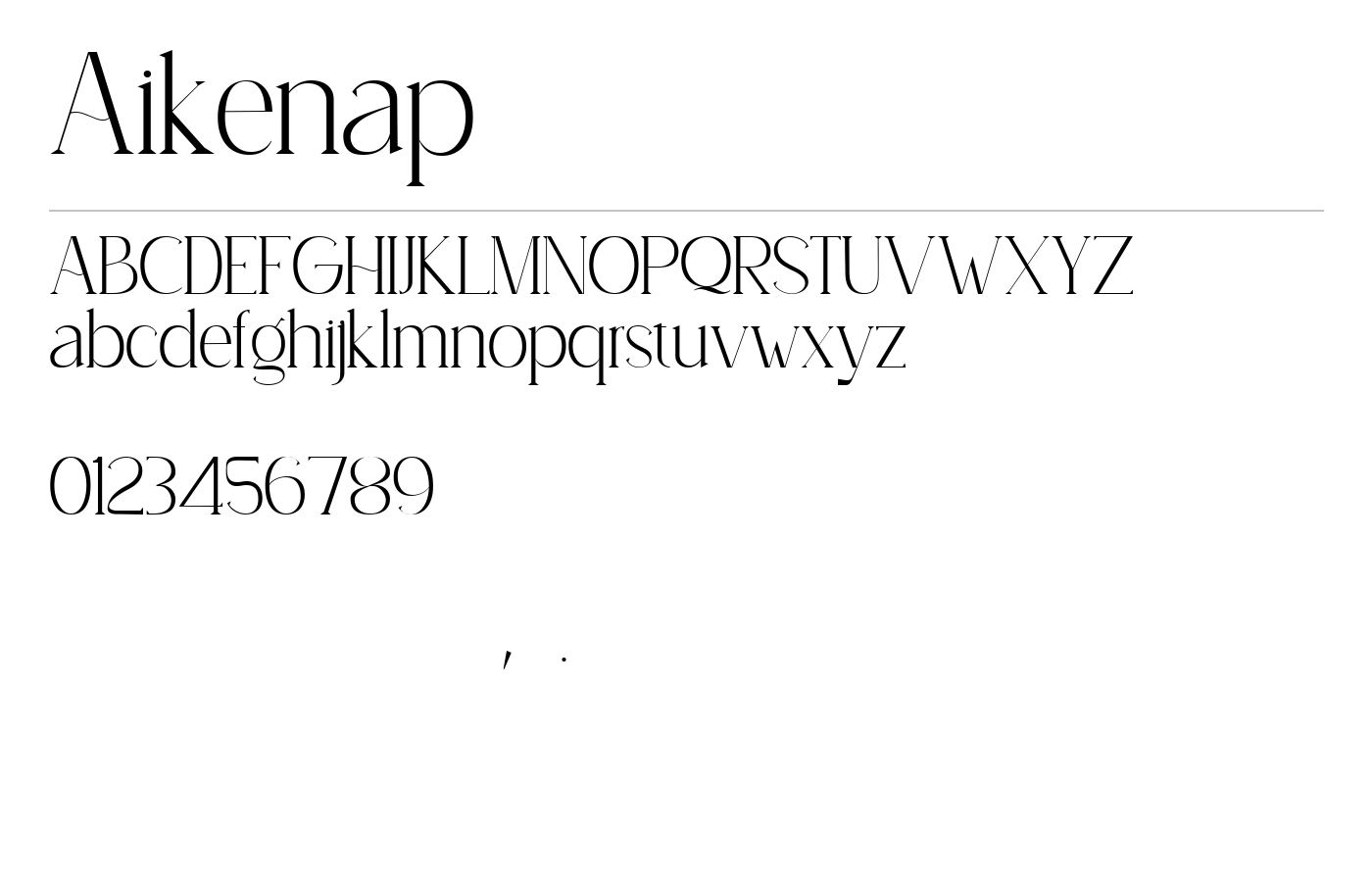
Aikenap is an elegant serif font characterized by its delicate, high-contrast strokes and tall, narrow letterforms that convey a refined and sophisticated feel. Its unique letter shapes, such as the single-story lowercase 'a' and the distinct curved details, make it ideal for luxury branding, editorial headlines, and fashion-focused design projects where a touch of modern elegance is desired. This font works best in large sizes to highlight its fine details and stylish personality.
Aikenap Font
About Aikenap Font
| Font family | Aikenap Font |
| Designer | Muksal Creative |